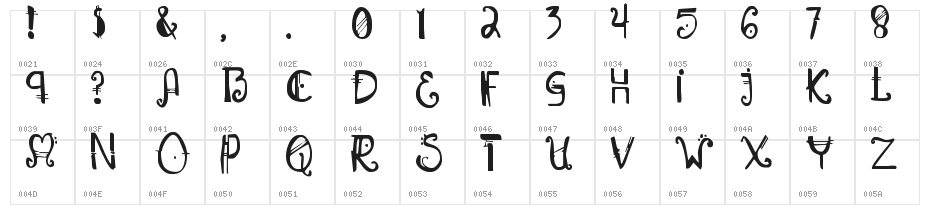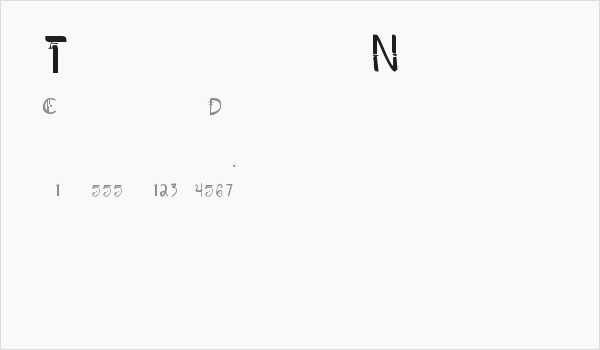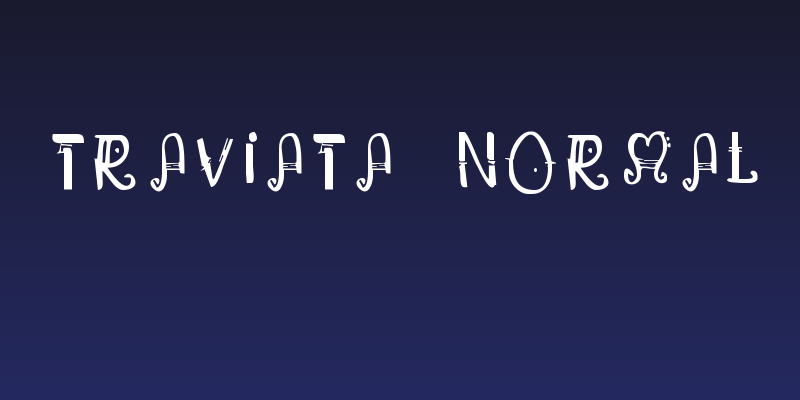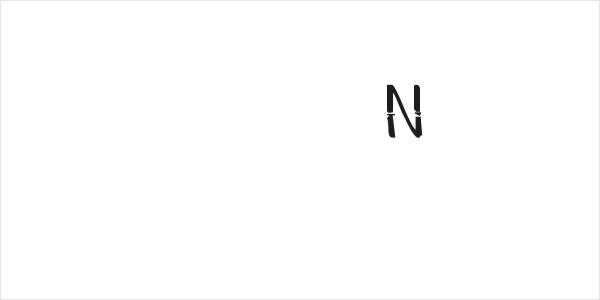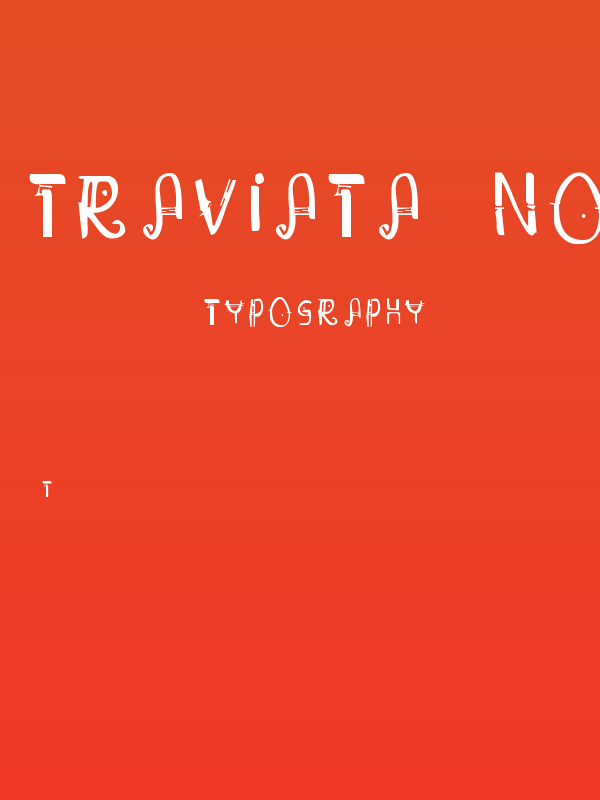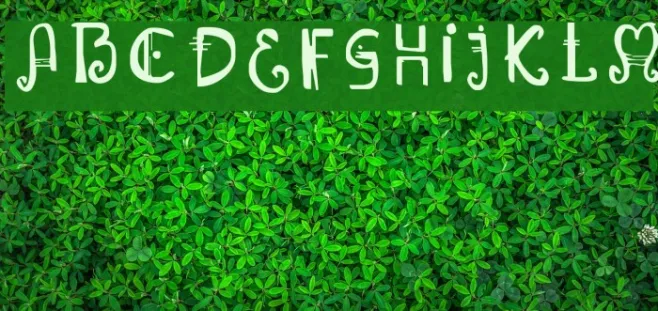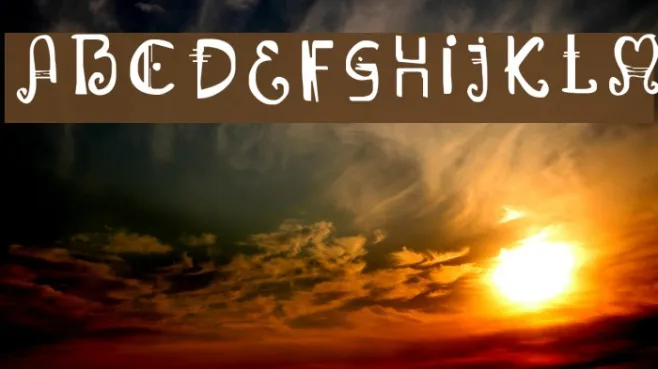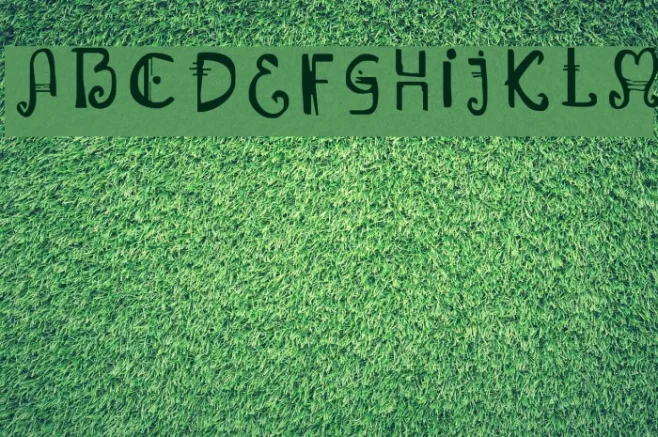
Traviata Normal Font
Traviata Normal Description
This font features a whimsical and artistic design, characterized by its playful and decorative elements. Each letter is uniquely crafted with swirls and embellishments, giving it a lively and dynamic appearance. The strokes vary in thickness, adding an element of surprise and creativity to the overall look. The numbers and special characters maintain this artistic flair, ensuring consistency throughout the typeface. This font is perfect for projects that require a touch of fun and creativity, making it ideal for artistic and expressive designs.